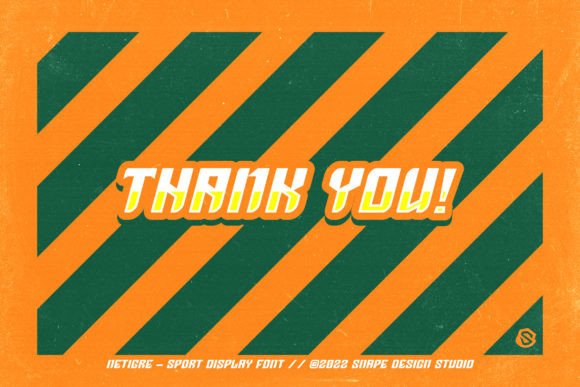
Introduction to Netigre Font
Have you ever stared at a blank canvas, searching for the perfect design element to elevate your project? The thrill of creation can be exhilarating, but sometimes, it takes that one special touch to make your work truly stand out. That’s where the Netigre Font comes in – a powerful design resource that’s sure to captivate your audience and leave a lasting impression.
As a designer, you know how challenging it can be to find the perfect font to complement your creative project. But with the Netigre Font, you can rest assured that you’ve got a high-quality, bold font that’s designed to draw attention and make your work shine. Whether you’re working on a sports-inspired design or a movie poster, this font is the perfect addition to take your project to the next level.
Key Features of Netigre Font
- High-quality, elegant design ideal for creative projects and design resources.
- Supports a wide range of languages, making it a versatile design resource.
- Designed with high-resolution graphics in mind, suitable for printing and digital applications.
- Netigre Font is available in a single weight, perfect for those seeking a clean and minimalist aesthetic.
- Perfect for designers, artists, and creatives looking for a high-quality, free font for their next project.
Honest Review: Netigre Font
I recently stumbled upon the Netigre Font, a free design resource that caught my attention. As a designer, I’m always on the lookout for high-quality fonts to enhance my creative projects.
- Unique and elegant design: The Netigre Font boasts a beautiful, modern aesthetic that would be perfect for any high-end project.
- Transparent background: This feature allows for seamless integration with various design elements, giving you complete creative control.
- Limited font weights: The Netigre Font only offers a few font weights, which might not be suitable for projects requiring a wide range of font variations.
- No italic or bold styles: This limitation might restrict its use in certain design scenarios, such as headings or emphasis.
Overall, I’m impressed with the Netigre Font’s design quality and versatility. While it may have some limitations, it’s a valuable addition to any designer’s toolkit. If you’re working on a creative project and need a high-quality font, give the Netigre Font a try – you won’t be disappointed!
How to Use Netigre Font
The Netigre Font is a versatile and creative design resource that can be used in various projects, from graphic design to digital art. To get the most out of this high-quality font, follow these steps:
The Netigre Font is ideal for creative projects such as:
- Digital art
To get the most out of the Netigre Font, experiment with different font sizes, colors, and styles. You can also use it in combination with other design elements to create unique and eye-catching designs.